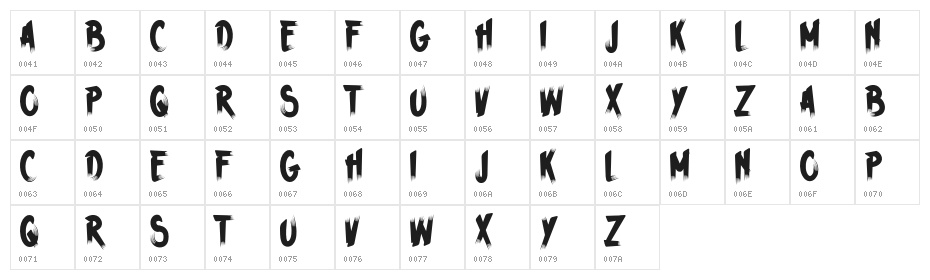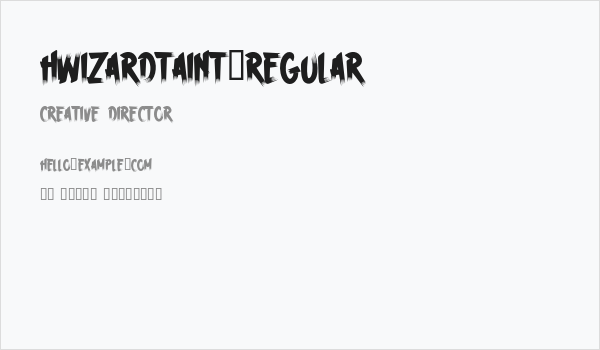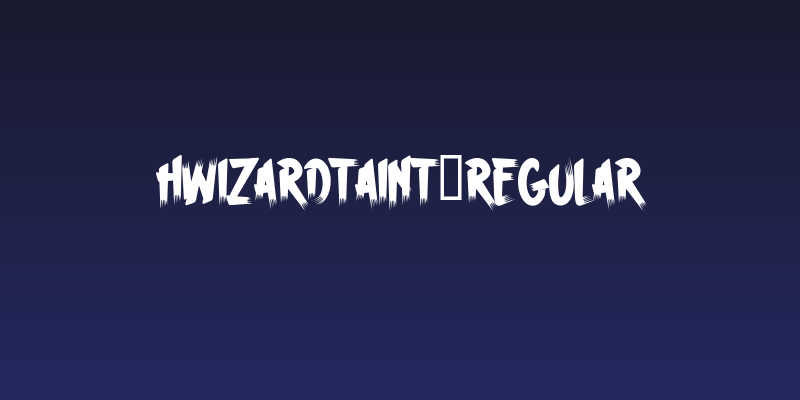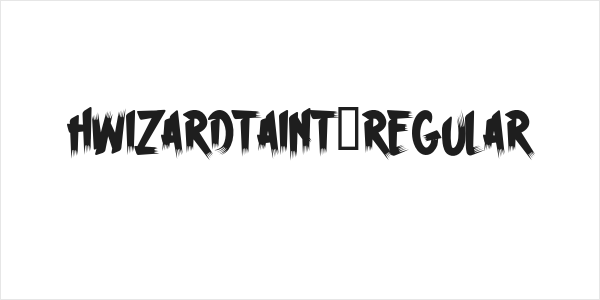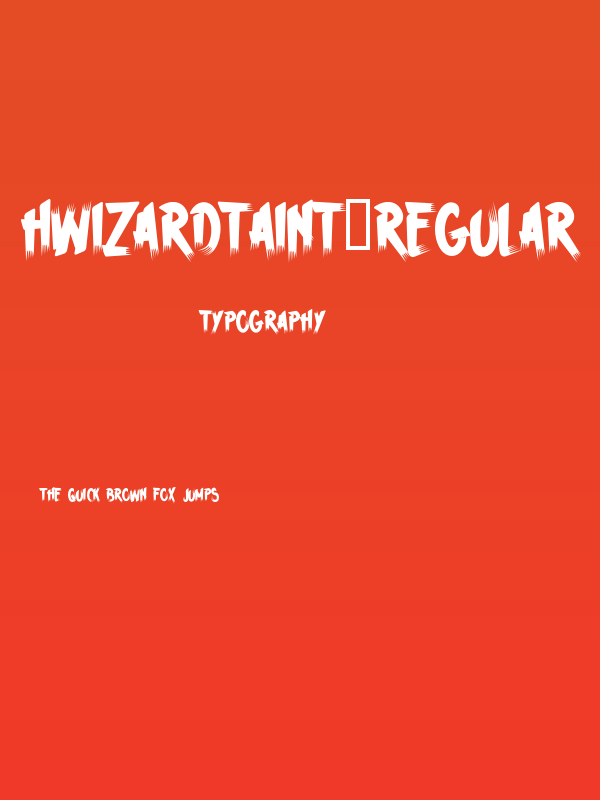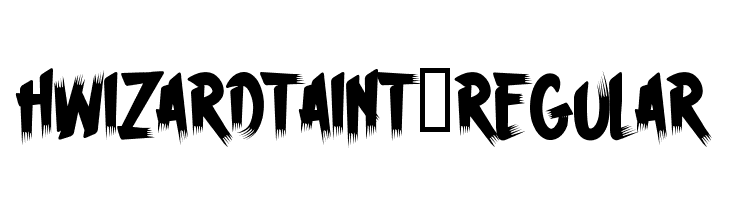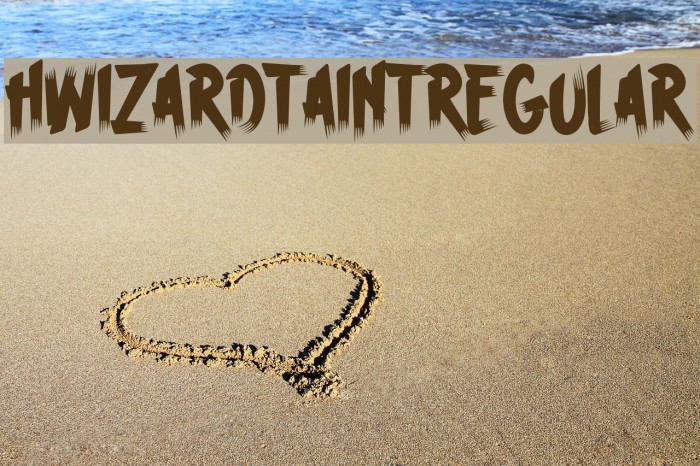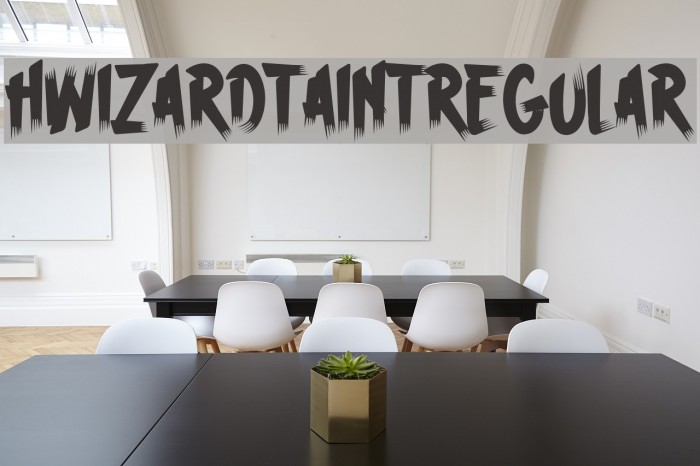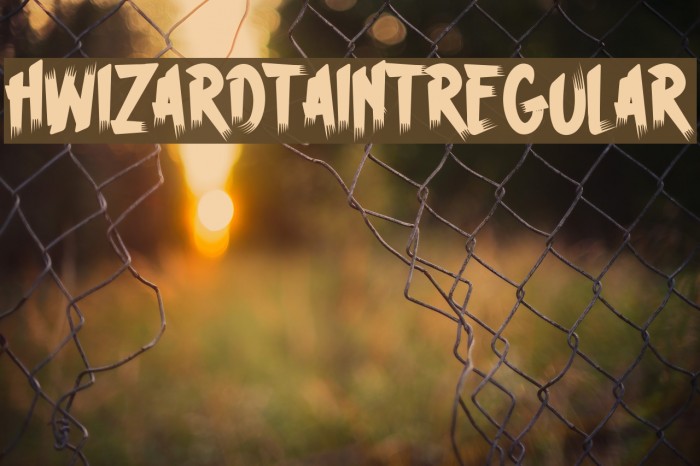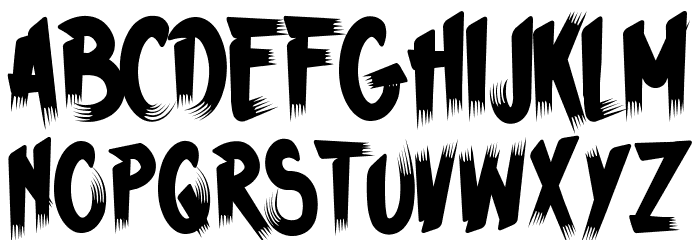
HWizardTaint-Regular Font
HWizardTaint-Regular Description
This font features a bold and dynamic style with a unique brush-like texture that gives each character a sense of movement and energy. The uppercase letters are particularly striking, with sharp edges and a slightly distressed appearance that adds to the overall dramatic effect. The font's design is reminiscent of hand-painted signage, making it ideal for projects that require a bold and eye-catching display. The characters are tightly spaced, enhancing the compact and impactful nature of the font. Its high contrast between thick and thin strokes further emphasizes its boldness, making it suitable for attention-grabbing headlines and titles.
| Proposed Projects | Ideal for posters, logos, and branding that require a bold and energetic look. |